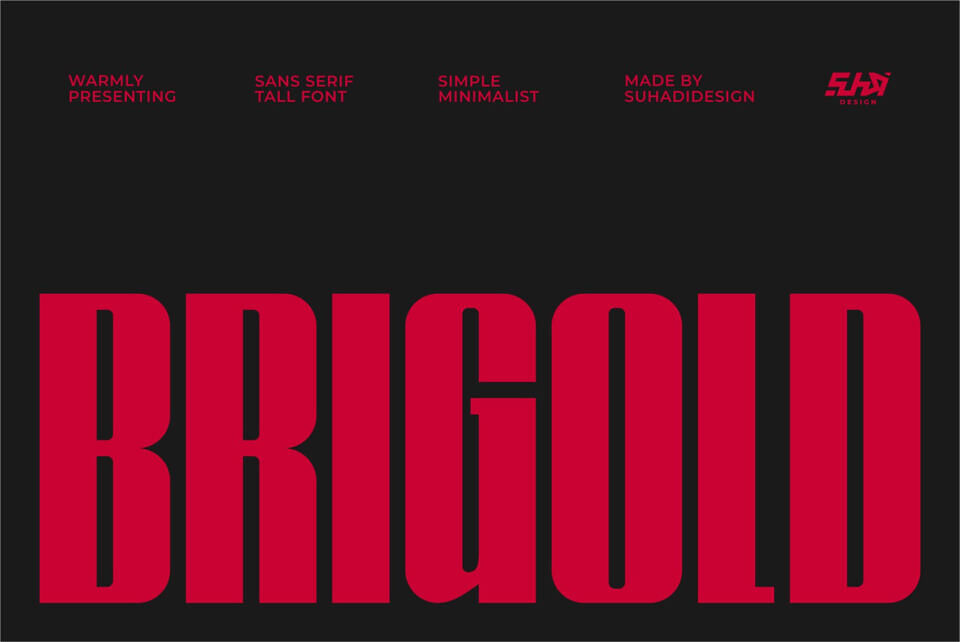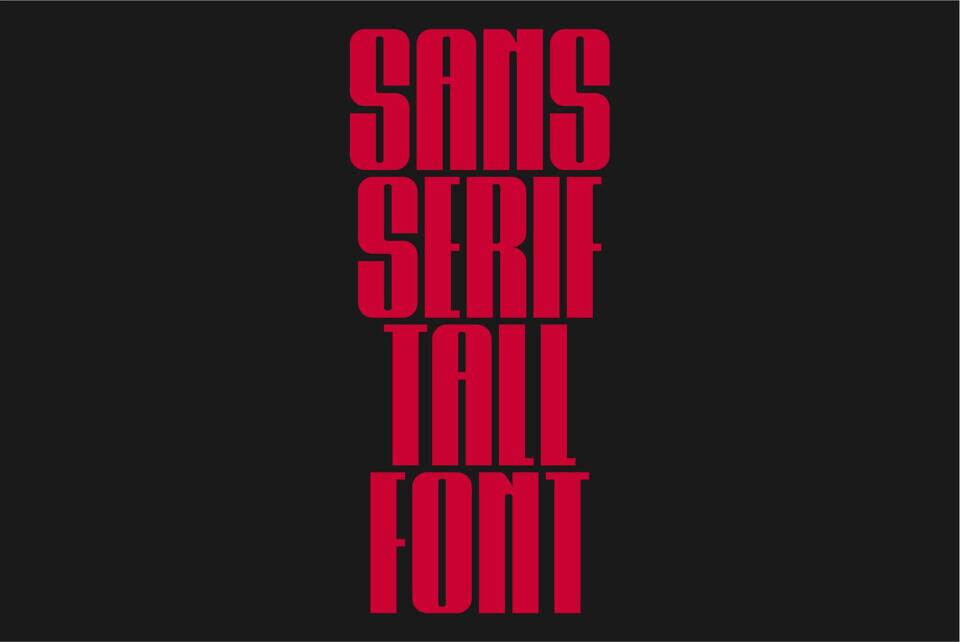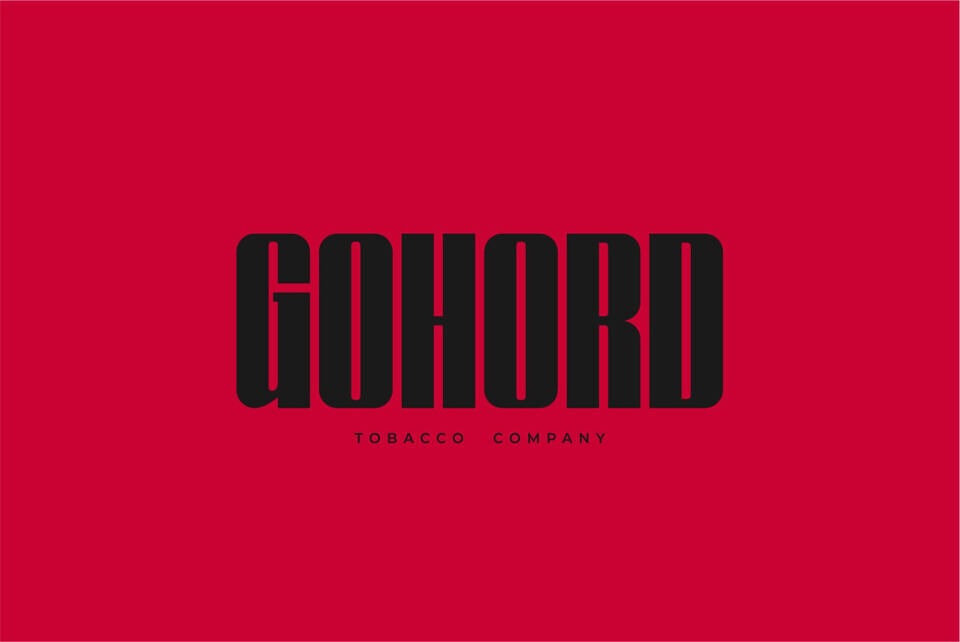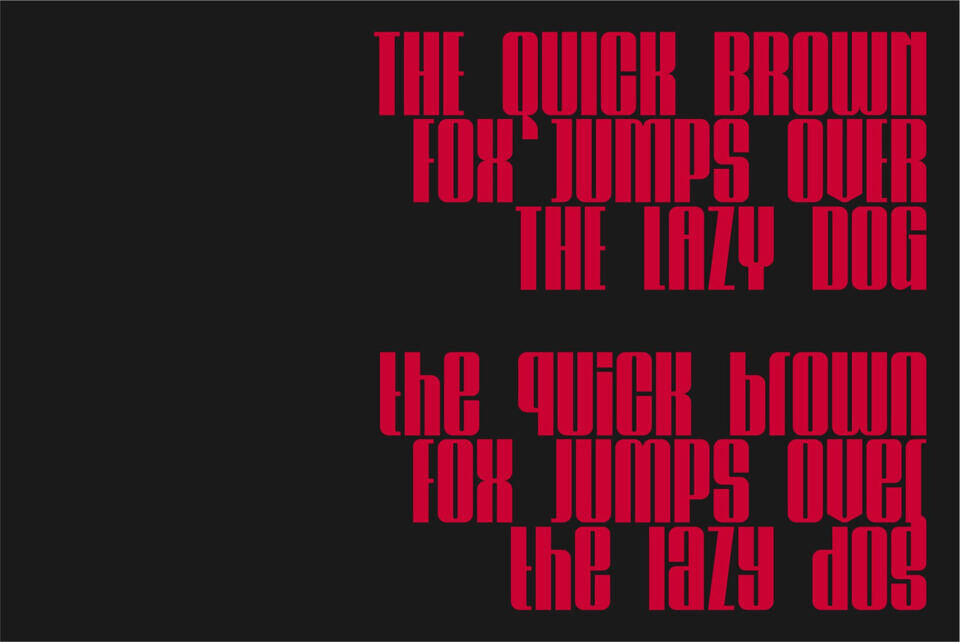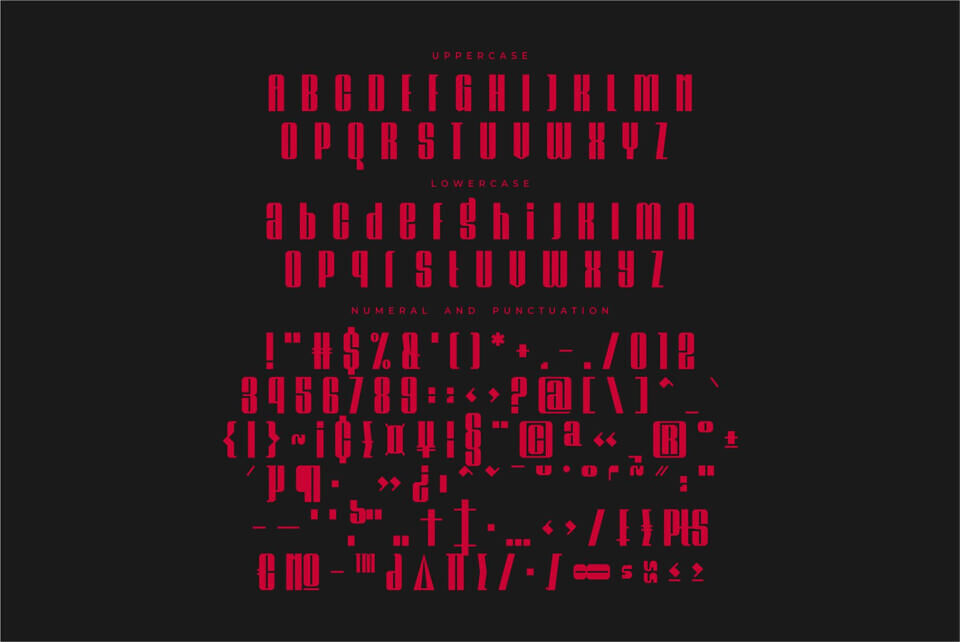
Brigold Font
Brigold is a stylish sans serif font with a distinct style and an elegant, thin thickness that has become a market favorite. Brigold is a great choice for magazines, book covers, shopping bags, packaging, logos, labels, fashion, posters, banners, bags, brand names, branding, quotes, and other projects. Brigold is here to take your designs to the next level.